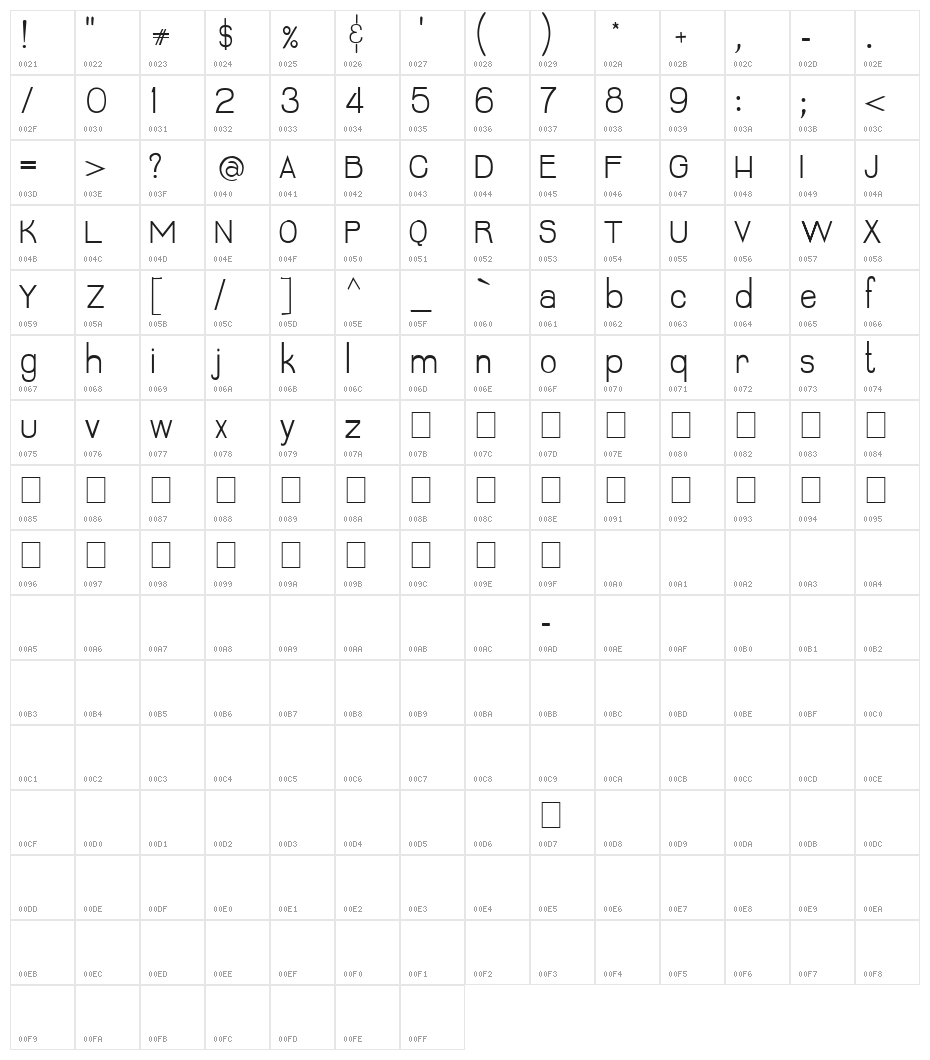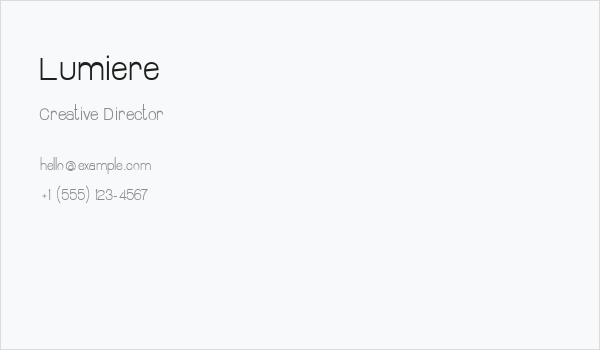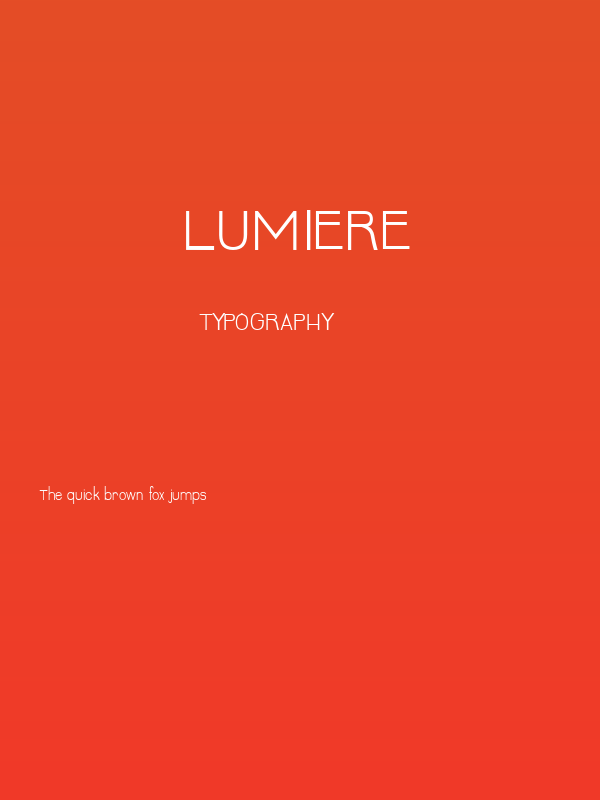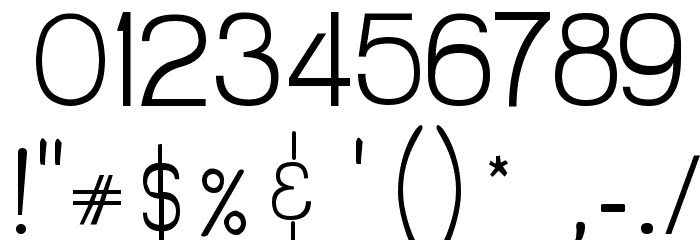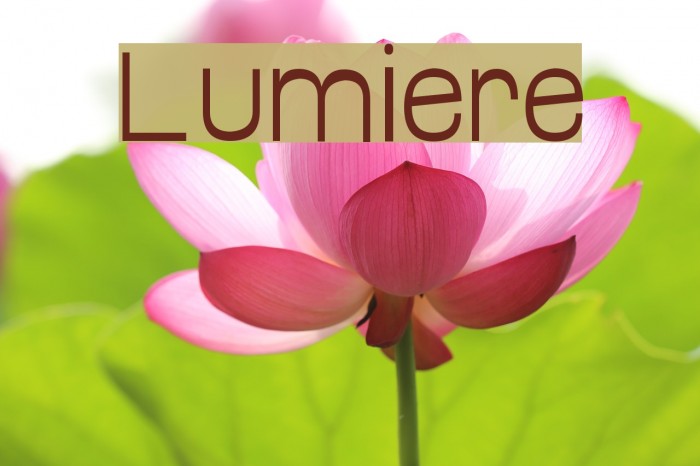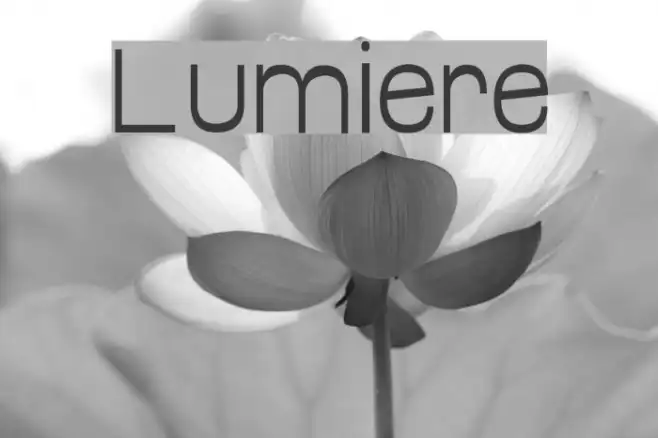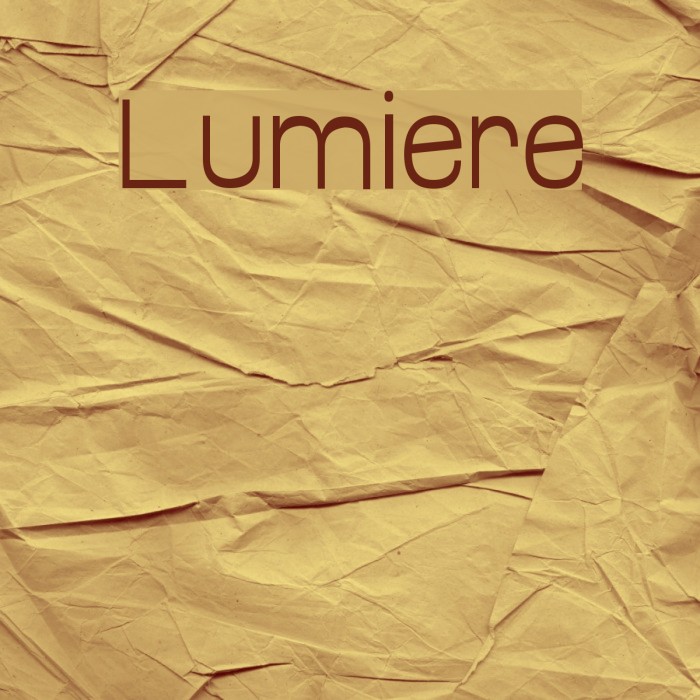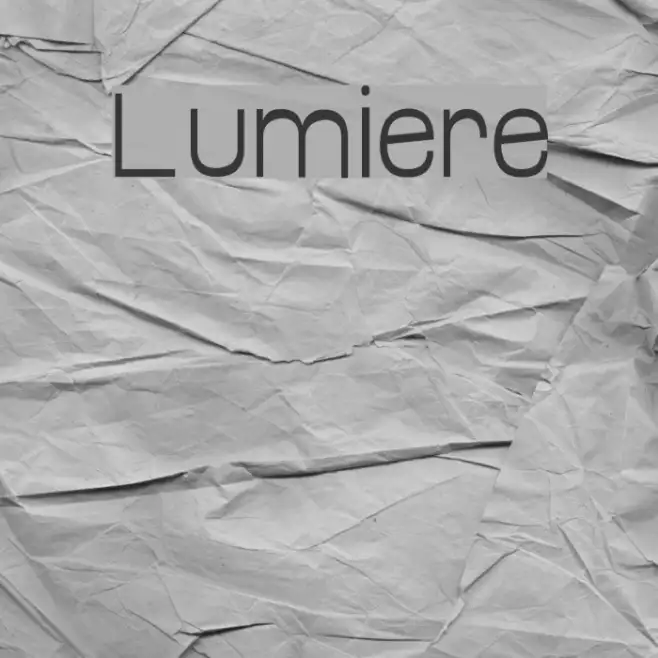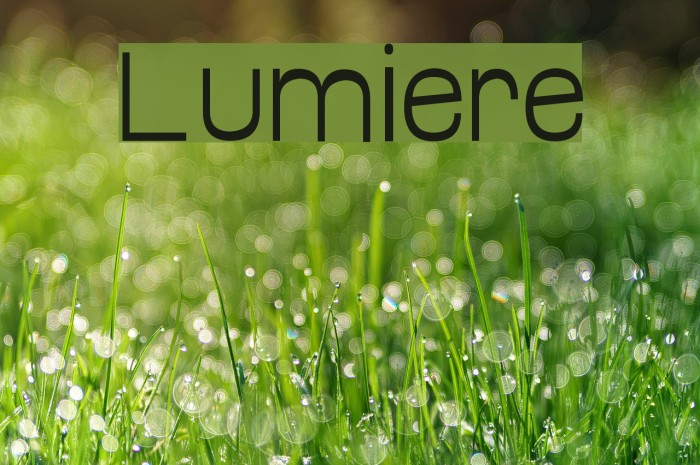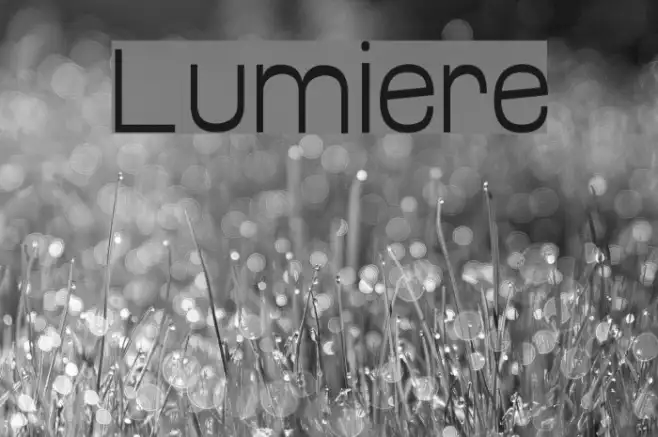
Lumiere Font
Lumiere Description
This font features a clean and modern sans-serif design with a geometric structure. The characters are uniform in width, providing a balanced and harmonious appearance. The uppercase letters are bold and assertive, while the lowercase letters maintain a consistent height, enhancing readability. The numerals are clear and distinct, making them suitable for various applications. Special characters are well-defined, adding versatility to the font. The overall style is minimalist, making it ideal for contemporary design projects.
| Proposed Projects | Ideal for branding, web design, advertising, and editorial layouts. |